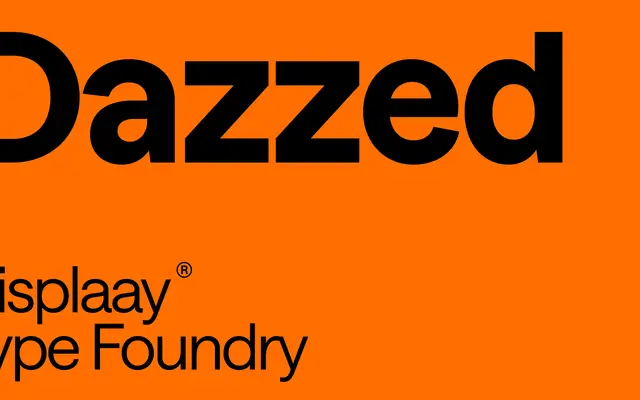
A seven-weight geometric sans from Displaay with a distinct digital and tech-inflected character, available as a variable font across weight and slant axes.
Fourteen styles span seven weights from Thin to Heavy, each with a matching italic, and the family ships as a variable font with weight and slant axes for fine-grained control. The specimen leans heavily into digital culture — binary numerals, circuit diagrams, command-line references — suggesting a typeface aimed at tech branding, music culture and screen-forward editorial work. The forms are clean and structured without being purely neutral, carrying enough personality for display use while holding together at text sizes.
The specimen imagery and terminology — digital circuitry, binary numerals, tech references — alongside the clean, structured forms visible in the showcase point to a geometric sans with a tech-inflected character.